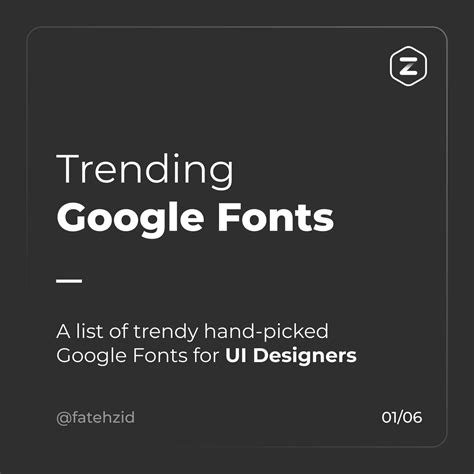
When I first started building interfaces, I underestimated how much typography impacted usability. I would grab flashy typefaces and wonder why my layouts felt cluttered. After years of tweaking padding and margins, I realized the secret was choosing the right typefaces from the start. If you are looking for the Top 24+ Google Fonts Ui Design Ttf collections, you need options that prioritize legibility over aesthetics. Here is my tested breakdown of the best typefaces for digital products.
Why Typography Dictates UI Success
Typography in user interfaces isn’t about looking pretty. It is about guiding the user’s eye and reducing cognitive load. In my experience, a font that looks great on a billboard often fails at 14px on a dense dashboard. You need typefaces with a tall x-height, clear counter shapes, and distinct characters. This is where choosing specific TTF files for your design system makes a noticeable difference.
My Picks for the Top 24+ Google Fonts Ui Design Ttf Collection
I have tested dozens of typefaces across various viewport sizes. Honestly, the same five or six families end up doing the heavy lifting in almost every project. Here is a comparison of my absolute favorites that I keep in my local font library.
| Font Family | Best UI Use Case | Key Characteristic |
|---|---|---|
| Inter | Body text, dense data tables | Designed specifically for screens |
| Roboto | Android applications, general web | Mechanical skeleton, friendly curves |
| Poppins | Headers, geometric buttons | Perfectly circular geometry |
| IBM Plex Sans | Enterprise software, dashboards | Highly technical, distinct numerals |
Inter is my default. I have found that its hinting at 13px and 14px is unmatched, keeping characters crisp on high-DPI displays. While Google Fonts typically serves WOFF2 for web optimization, downloading the TTF versions is critical when you are designing in Figma, Sketch, or building an offline desktop application. TrueType files give you the exact rendering baseline you need before converting them for production.
Pairing Sans-Serif and Monospace for Better UX
A good interface rarely relies on a single typeface. I usually pair a sans-serif for primary text with a monospace for data input. This creates a clear visual hierarchy without needing extra color coding. Consider these functional pairings for your next build:
- Inter for body text, paired with JetBrains Mono for code snippets.
- IBM Plex Sans for navigation, paired with Roboto Mono for numerical data.
- Poppins for headers, paired with Inter for dense paragraph reading.
Selecting the right typography is the foundation of any interface. By sticking to tested sans-serif families and downloading the correct TrueType files for your design environment, you remove the guesswork from your layouts. Test your chosen family at the exact pixel sizes your users will see, and your UI will instantly feel more professional.